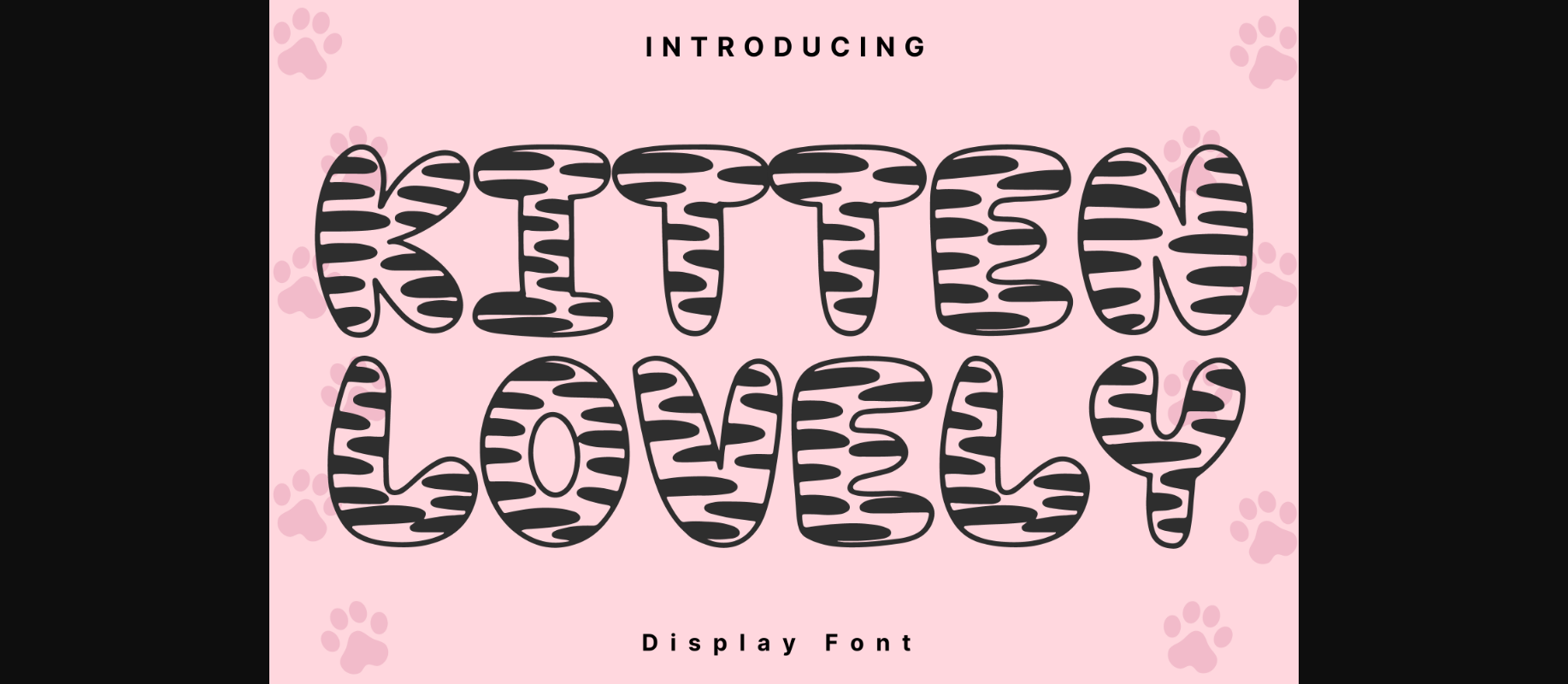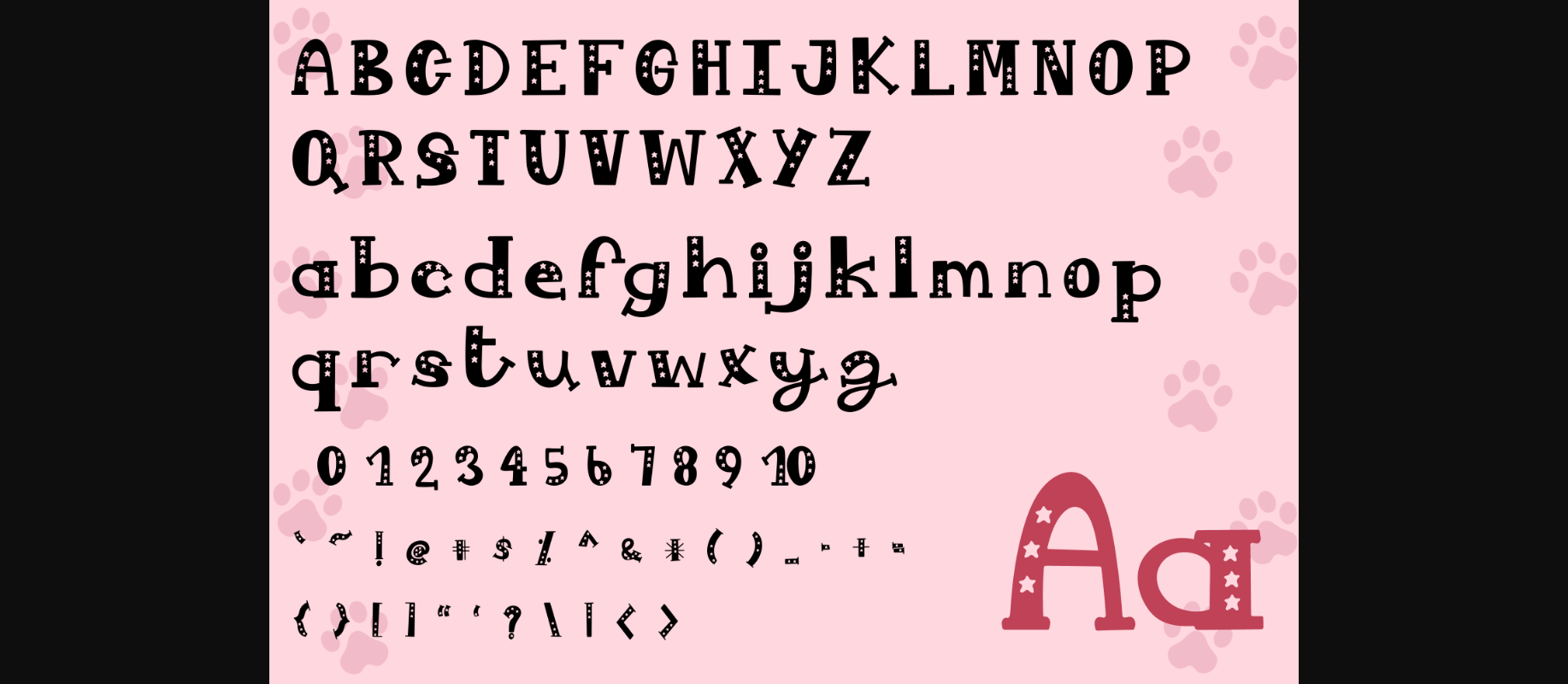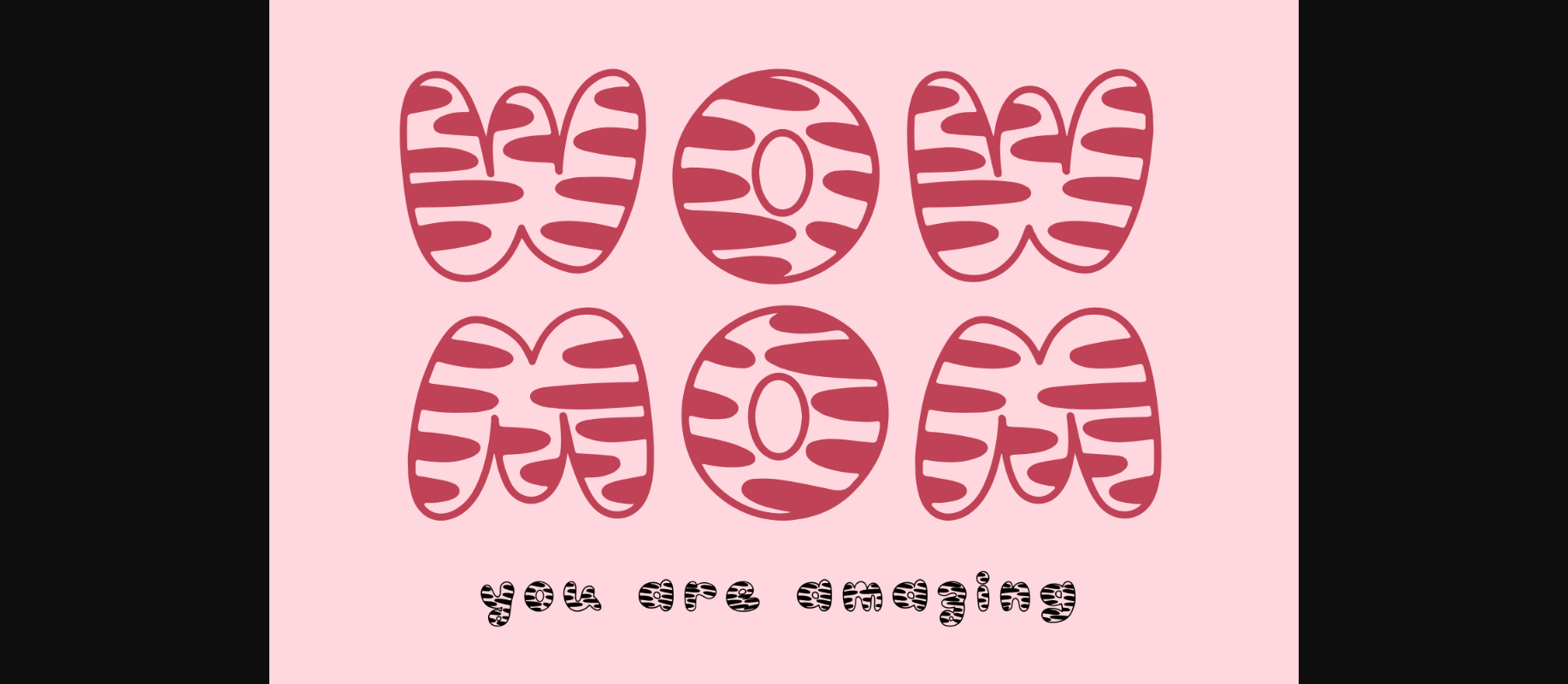
About Kitten Lovely Font
Kitten Lovely Style is a whimsical and clean handwritten font. It can easily be matched to an incredibly large set of projects, so add it to your creative ideas and notice how it makes them stand out! This font is PUA encoded which means you can access all of the amazing glyphs and ligatures with ease!